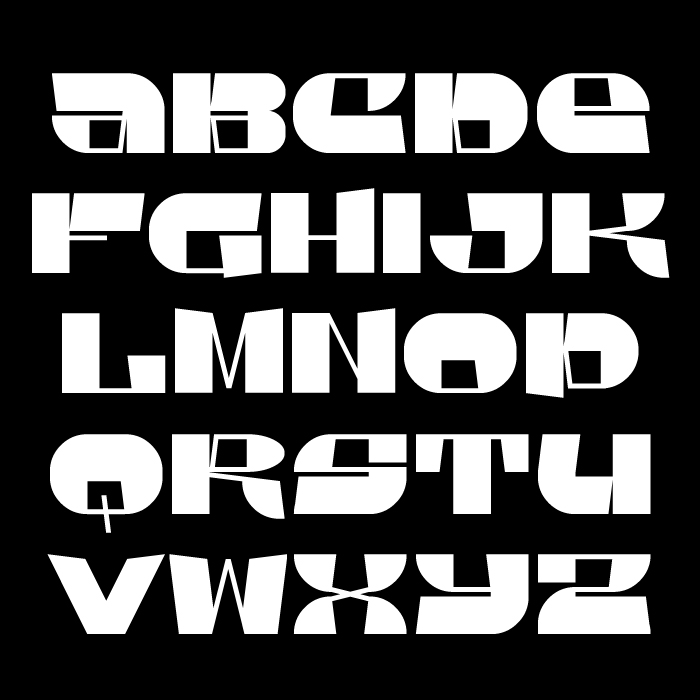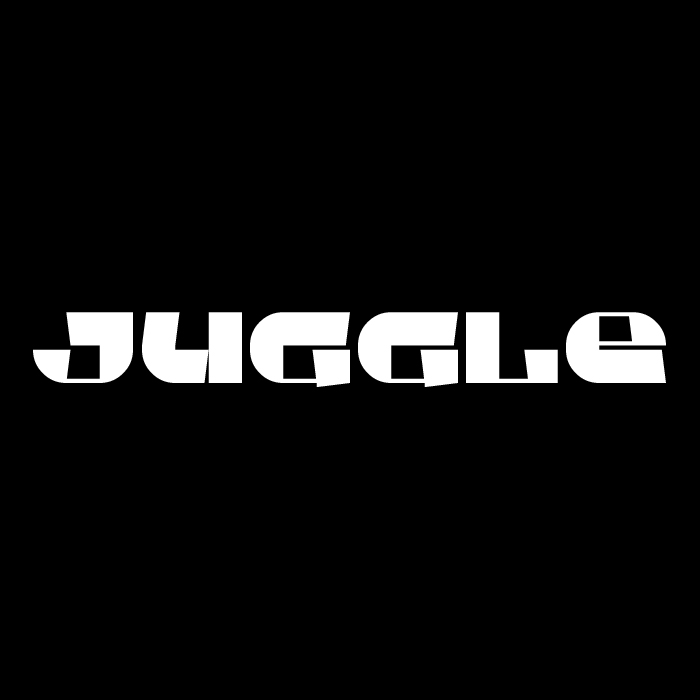
neat
Great font, compañero!
Wow! So creative!
Togethers also on the TP! Congrats, compa!
I love the high contrast and the trapezoid white spaces inside the letters. TP well deserved. 10/10
very interesting design, unique and eye-catching. 10/10
Looks nice! 10/10
Sangre de mi sangre
SOOO WOW! 11/10
Never seen anything like this before. So unique. Playful vibes. 10/10
I want to see how you made it.